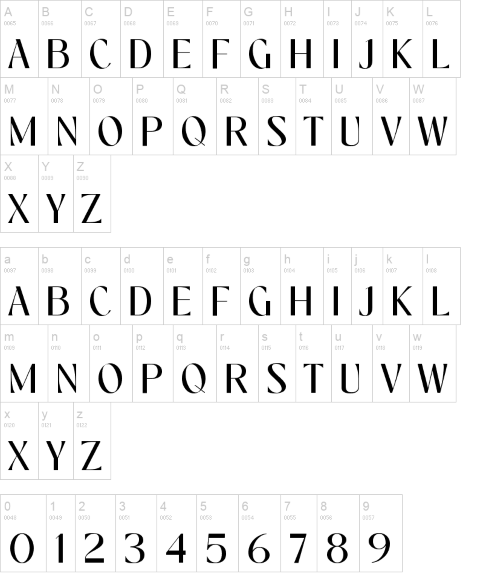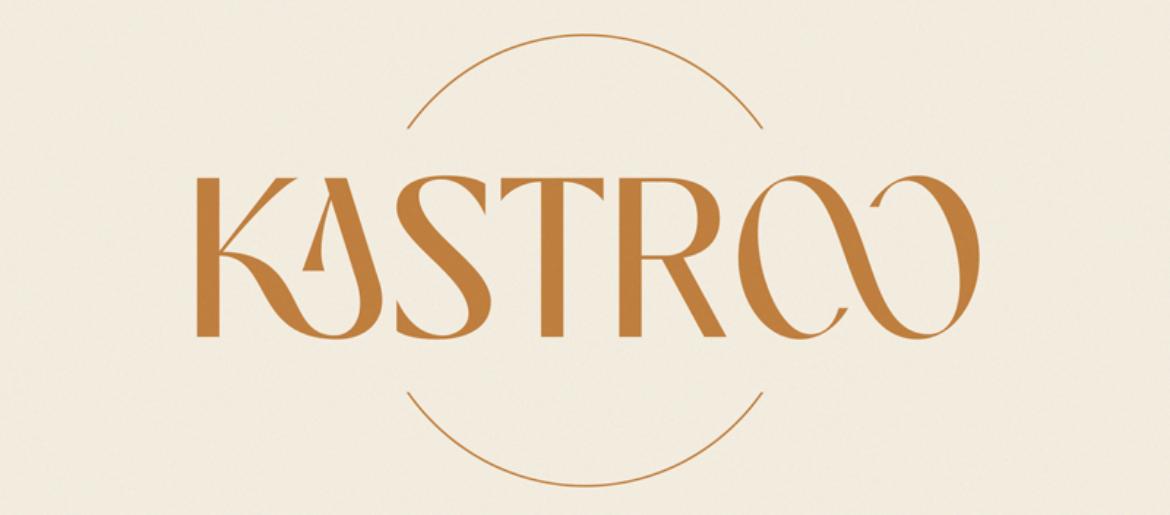
Kastroo Font
Kastroo Font is a playful, sans serif typeface with quirky, casual strokes and a friendly personality. Its organic, slightly irregular letterforms make it perfect for crafts, invitations, social media graphics, and fun branding. Kastroo adds a cheerful, approachable, and creative touch to any design project.
➤ Font Name: Kastroo
➤ Designer: Muflieart
➤ Style: Sans serif